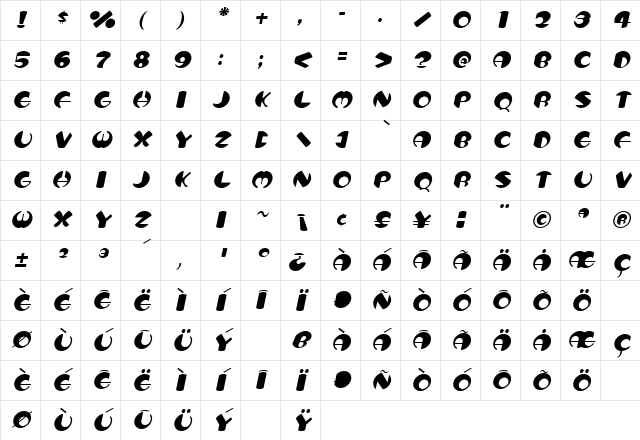
Totem is a composed and adaptable typeface that performs quietly and consistently across a wide range of design contexts. The slanted form adds forward momentum and visual energy.
Pro Tip: Use Totem for emphasis, pull quotes, and subheadings where its slanted energy can add rhythm to the layout.